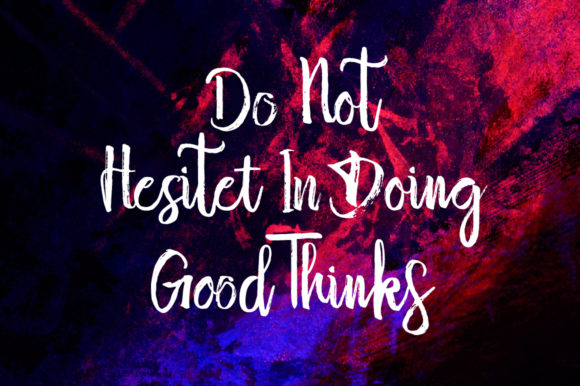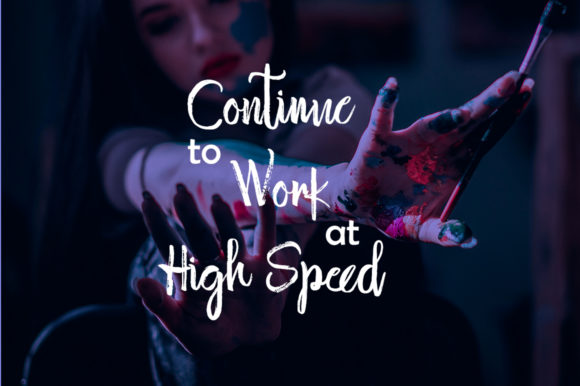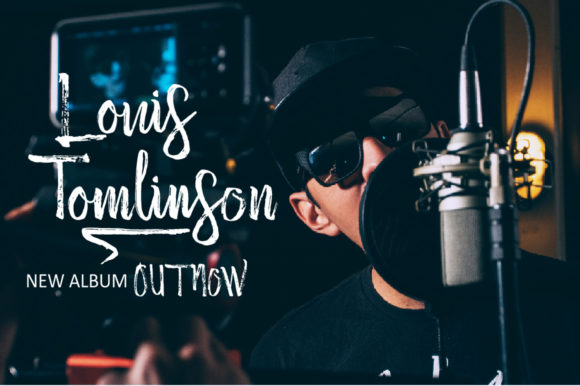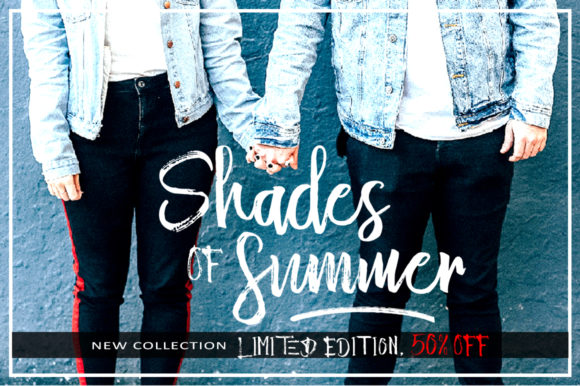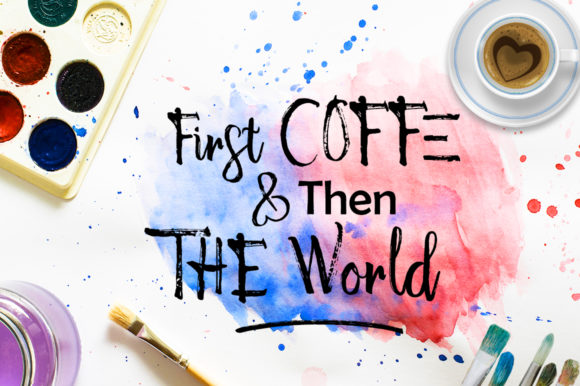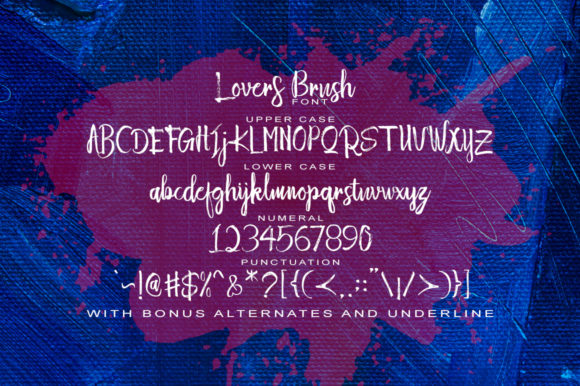
Introduction to Lovers Brush Font
Enter the Lovers Brush Font – a beautiful, handwritten font that will capture your heart and set your designs free. With its incredibly versatile style, you’ll find yourself falling in love with its unique charm and effortless elegance. Whether you’re working on a creative project or simply need a design resource that exudes high quality and sophistication, the Lovers Brush Font is the perfect addition to your toolkit.
Key Features of Lovers Brush Font
- Unique Hand-Drawn Design: Lovers Brush Font offers a distinctive, hand-drawn look that adds a personal touch to any creative project.
- Perfect for Creative Projects: This font is perfect for creative projects such as logos, branding, and typography-based art, where a unique and expressive look is desired.
Honest Review: Lovers Brush Font
I recently stumbled upon the Lovers Brush Font, and I must say, it’s a great addition to any designer’s toolkit. As a creative project, this font is perfect for those who want to add a personal touch to their designs.
One of the standout features of the Lovers Brush Font is its high quality and smooth texture. It’s ideal for use on a transparent background, allowing the subtle brush strokes to shine through. The free download is a definite plus, making it accessible to designers of all levels.
- Smooth texture and high quality
- Perfect for use on transparent background
However, I did encounter a few limitations: ⚠️
- Limited font styles and variations
- Not suitable for large-scale text
Overall, I’m impressed with the Lovers Brush Font. It’s a great design resource for those who want to add a touch of personality to their work. While it may not be perfect, its unique qualities make it a valuable addition to any designer’s collection.
For the best results, use the Lovers Brush Font on a transparent background to create a seamless design. This font is perfect for creative projects that require a free download, such as wedding invitations, birthday cards, and social media graphics. You can also use it in educational materials, such as presentations and reports, to add a touch of elegance.